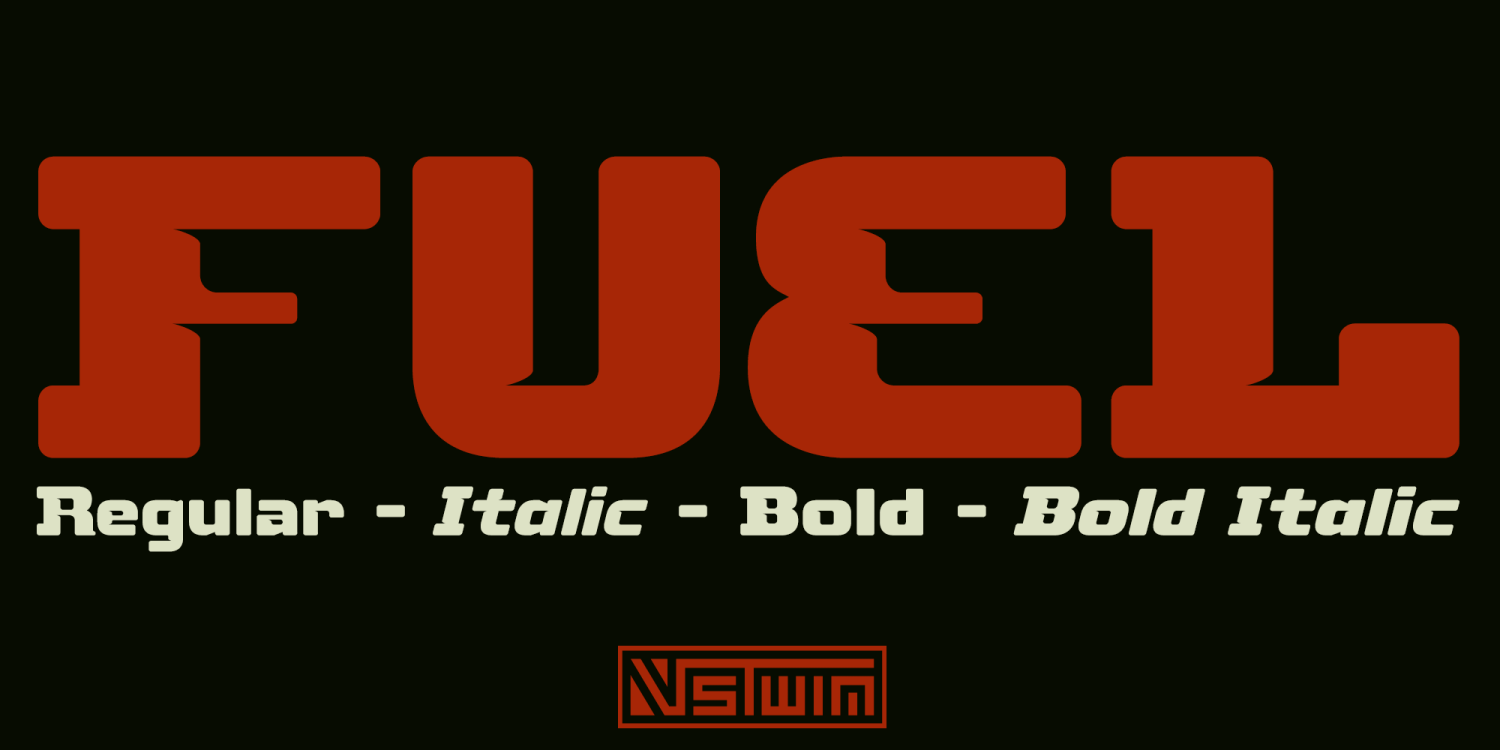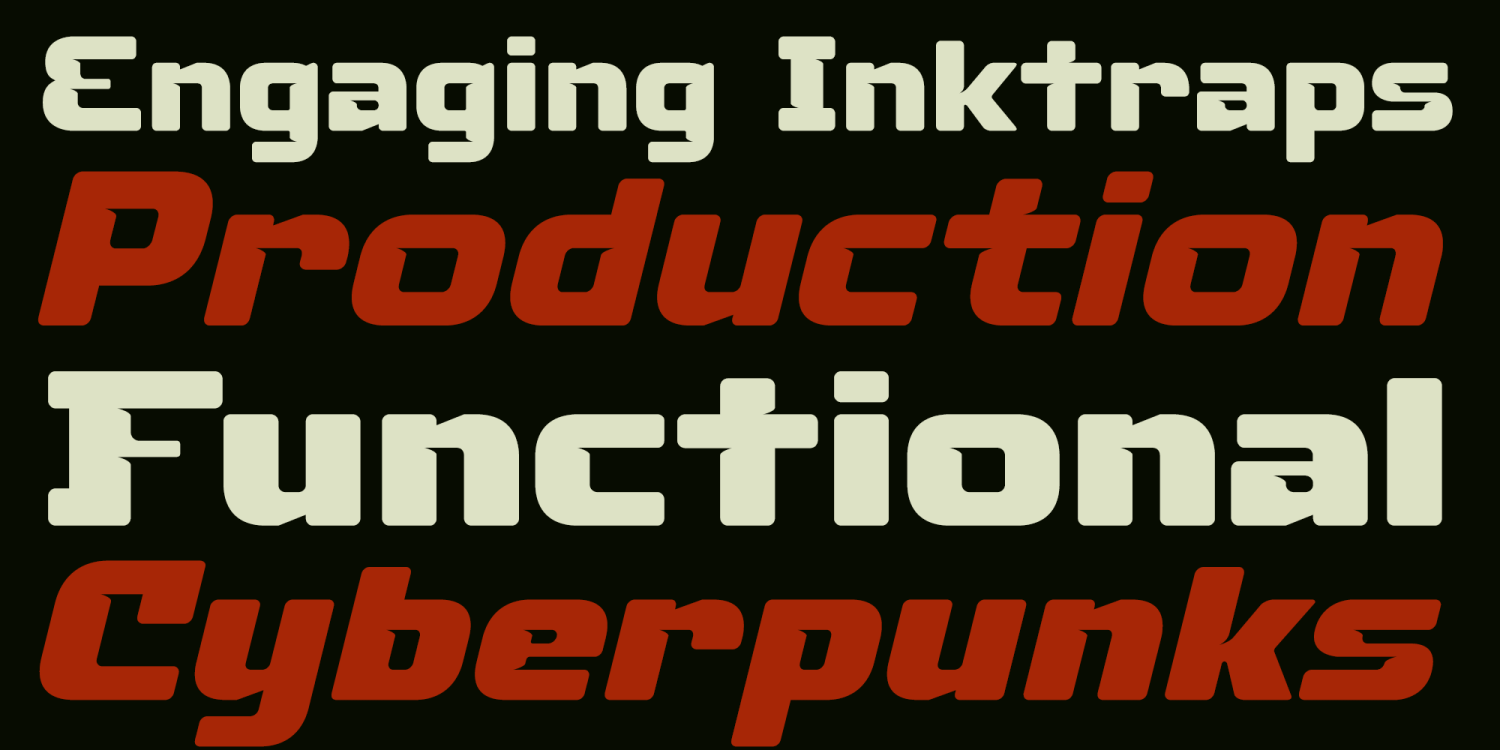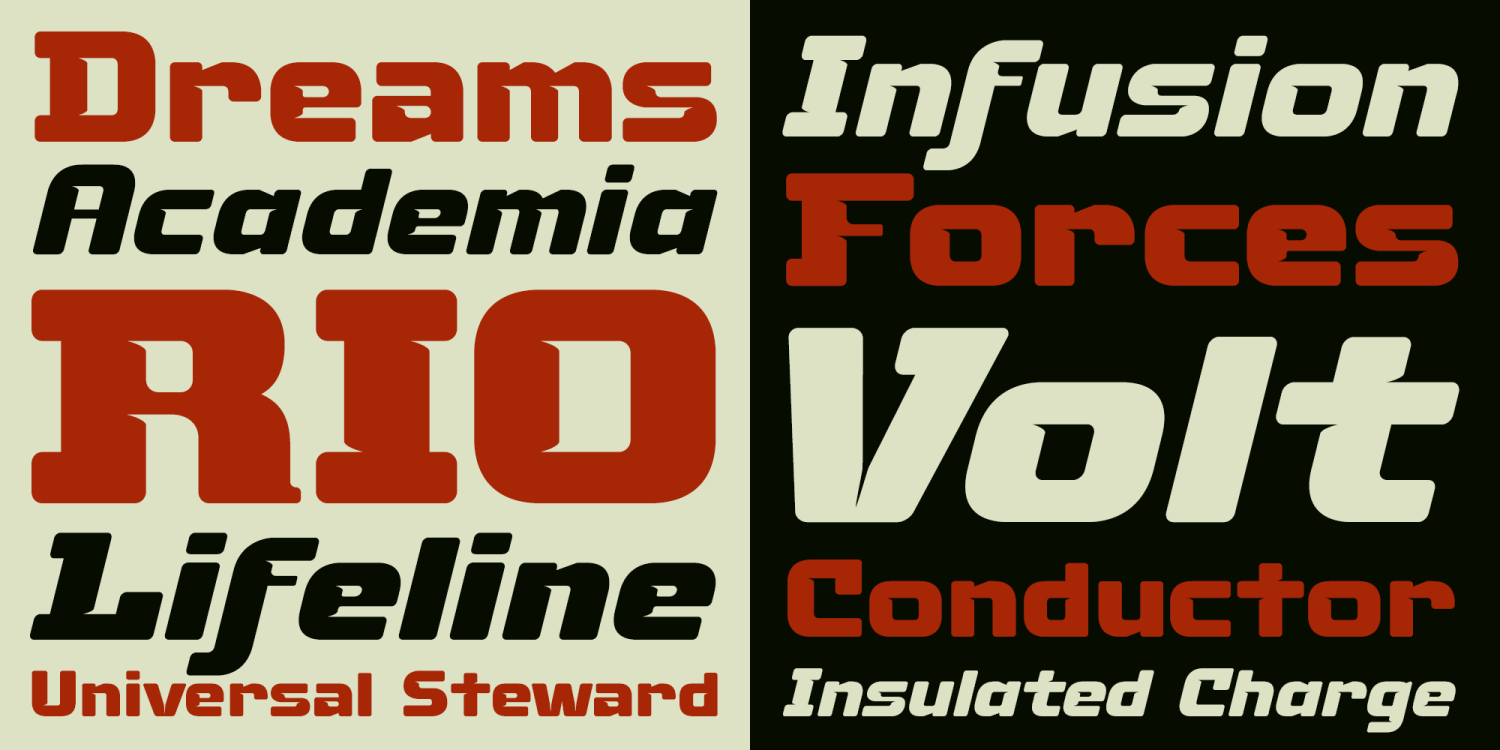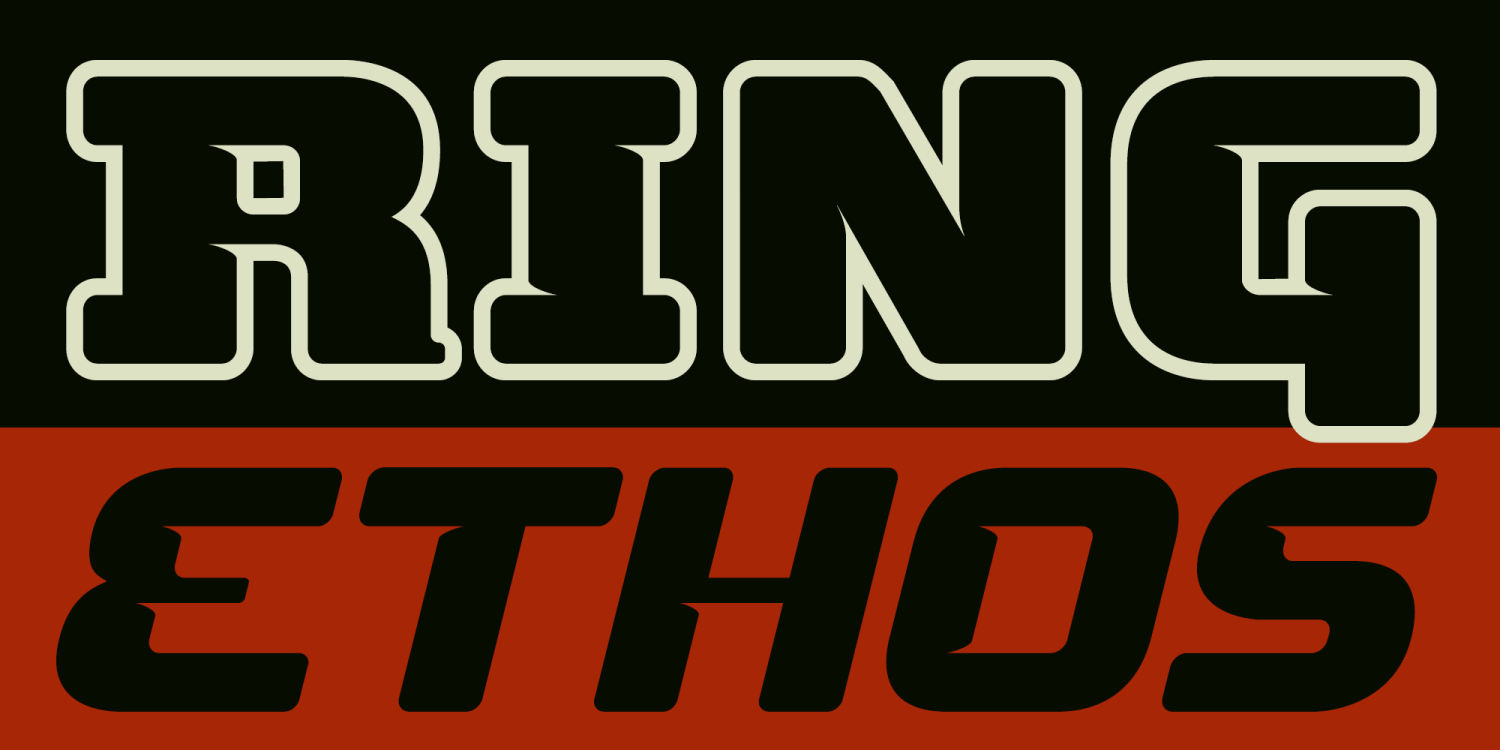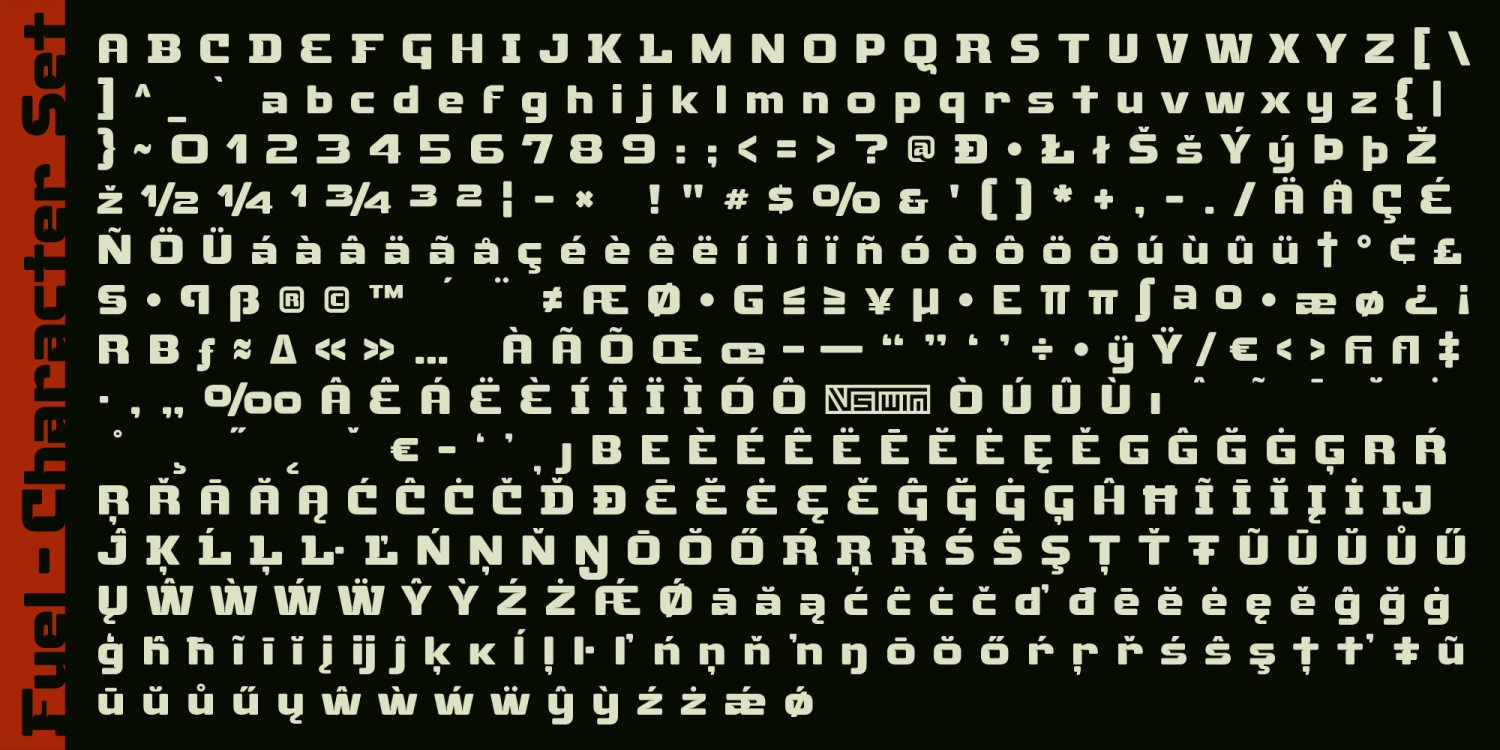
Fuel
Font Family by VersusTwin
Fuel is a modern techno sans built with streamlined geometry, softened corners, and a clean futuristic voice. Its structure feels sharp and engineered, but the rounded edges keep it from becoming cold or mechanical, giving the family a more approachable and versatile personality. With upright, italic, bold, and outline styles, Fuel works well across branding, posters, gaming graphics, packaging, editorial headlines, interface-inspired design, and contemporary display typography. It is especially effective in projects that need a sleek technical look with enough warmth and character to feel dynamic rather than sterile.